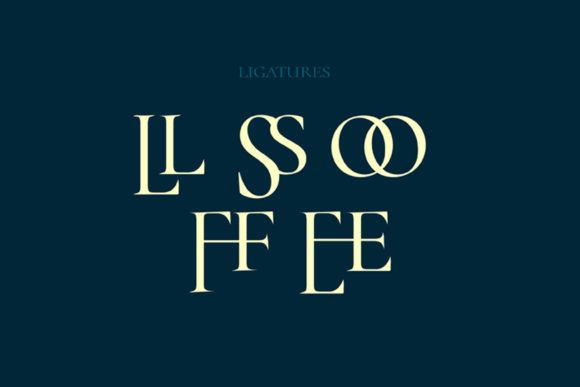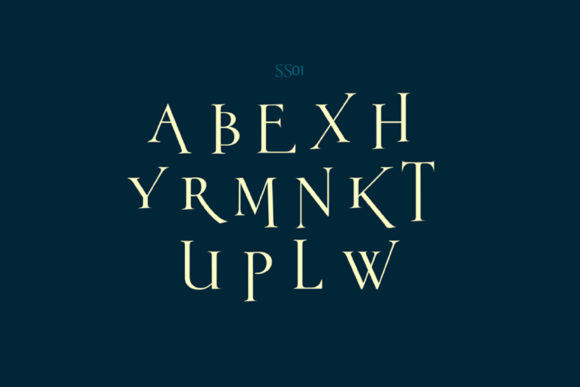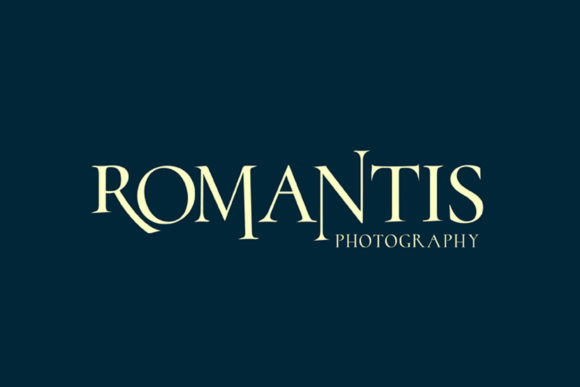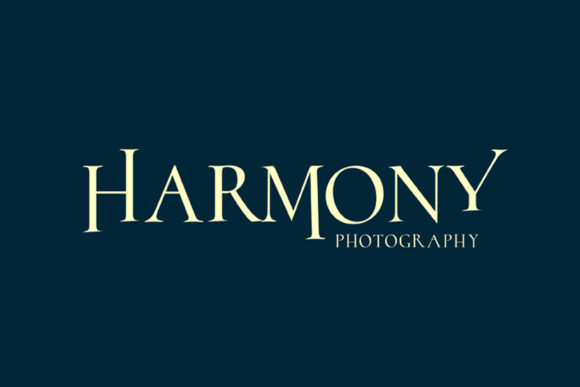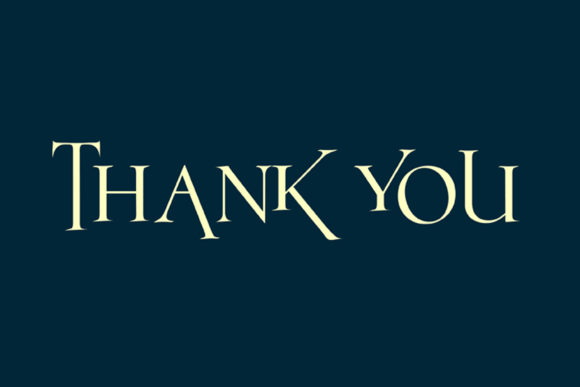
Introduction to Rollex Font
Rollex is an elegant, magical and sophisticated display font with a timeless appeal.
Rollex is an elegant, magical and sophisticated display font with a timeless appeal!
Key Features of Rollex Font
Why Choose Rollex Font?
Rollex Font offers exceptional quality and versatility, making it a valuable addition to your design toolkit. Whether you’re creating for personal projects or commercial use, Rollex Font delivers professional results.